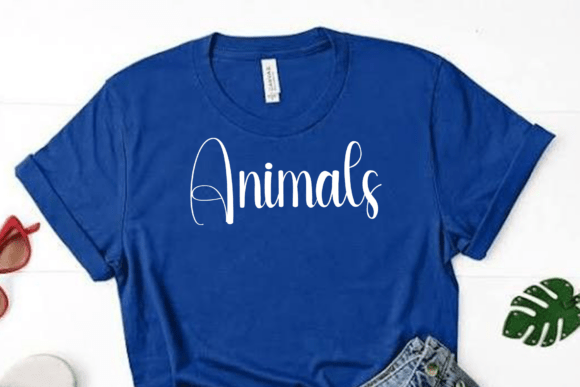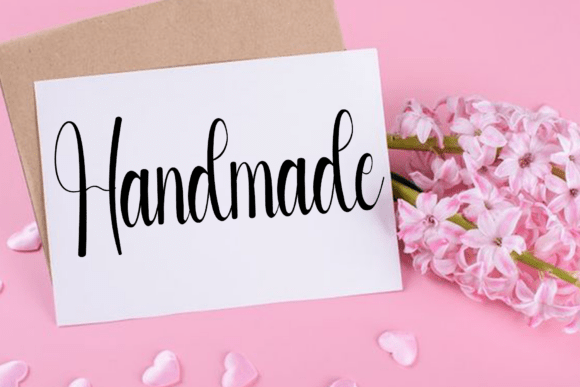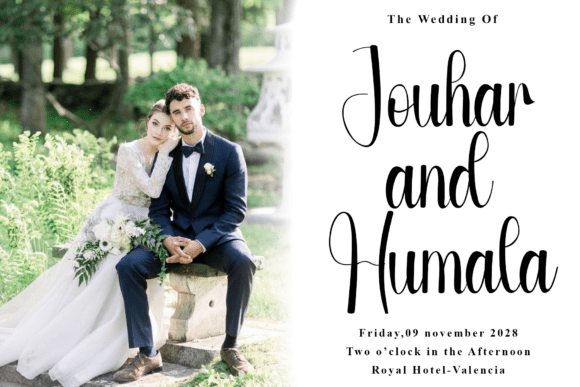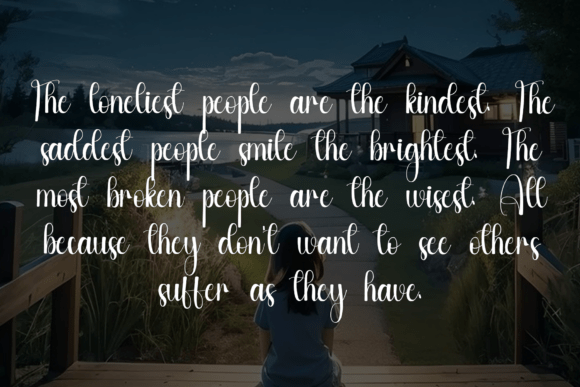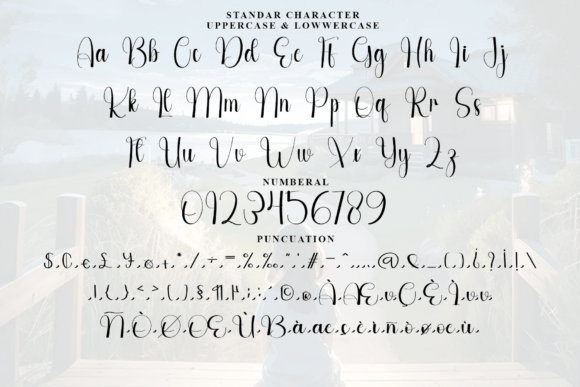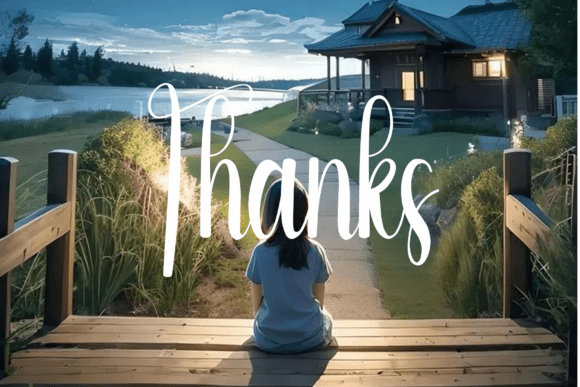
Unleashing Creativity with Animation Font
Have you ever stared at a blank canvas, eager to bring a new idea to life, only to find yourself stuck in a sea of possibilities? We’ve all been there. But sometimes, all it takes is the right tool to spark inspiration. For designers looking to infuse their work with a touch of personality, Animation Font is the perfect catalyst.
| 📌 Product Name | Animation Font |
| 👤 Author | Preketek texs |
This charming handwritten font is designed to add an organic, handmade feel to your designs. With its thick strokes and bouncy rhythm, Animation Font brings a sense of approachability and friendliness to your work. As part of the “Unique and Professional” collection, it’s a valuable asset for designers seeking to create impactful designs that stand out from the crowd.
Key Features of Animation Font
- Unique Characteristics: Animation Font features a unique blend of modern and vintage elements, with intricate details and animations that bring text to life.
Animation Font Review
Overall, I think the Animation Font is a great addition to any designer’s toolkit, but it’s not without its limitations.
- ✨ Dynamic animations: The font’s animations are smooth and well-executed, adding a touch of magic to any design.
- ✨ Versatility: The font is suitable for a wide range of designs, from simple text to complex compositions.
- ✨ Customization options: The font allows for some level of customization, including animation speed and duration.
- ⚠️ Limited control over animations: While the font’s animations are smooth, I sometimes find myself wishing for more control over their timing and sequence.
- ⚠️ Compatibility issues: I’ve experienced some compatibility issues with older browsers and operating systems.
- ⚠️ Limited support for accessibility: The font’s animations may not be suitable for all users, particularly those with visual impairments.
The Animation Font is a fun and creative tool that can add a unique touch to any design. While it’s not perfect, its strengths outweigh its limitations, making it a valuable addition to any designer’s toolkit.
Animation Font: A Practical Application Guide
Use animation font to draw attention to important information, such as headlines or calls-to-action. Experiment with different font styles and effects to create a unique and engaging animation. Common use cases include social media graphics, presentations, and video titles.
Getting the Most Out of Animation Font
To get the most out of animation font, experiment with different font sizes, colors, and effects. Use animation font in combination with other design elements, such as graphics and images, to create a visually appealing animation. Practice using animation font in different contexts to develop your skills and style.
Comic Sans MS is a sans-serif font designed by Vincent Connare in 1994. It is often used for informal and playful designs, such as children’s books, magazines, and websites. While it’s not as elegant as Animation Font, Comic Sans MS is more readable and can add a lighthearted touch to designs.
Can I use an Animation Font in a static design project, such as a logo or brochure?
Yes, you can use an Animation Font in a static design project, but keep in mind that its primary purpose is to be used in dynamic environments. In static designs, the font may appear more bold and stylized than intended, which can affect its readability. If you’re looking for a font that’s specifically designed for static use